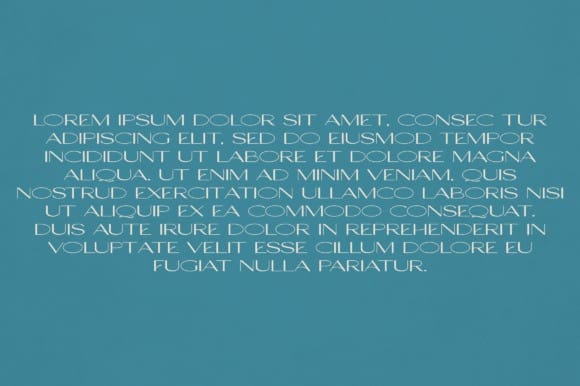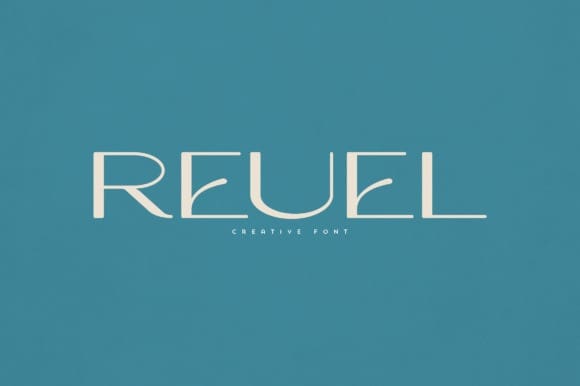
Reuel Font
Reuel Font is an elegant and versatile font that will make your typography truly unique! It will enchant every logo, branding, headline, or plain text!